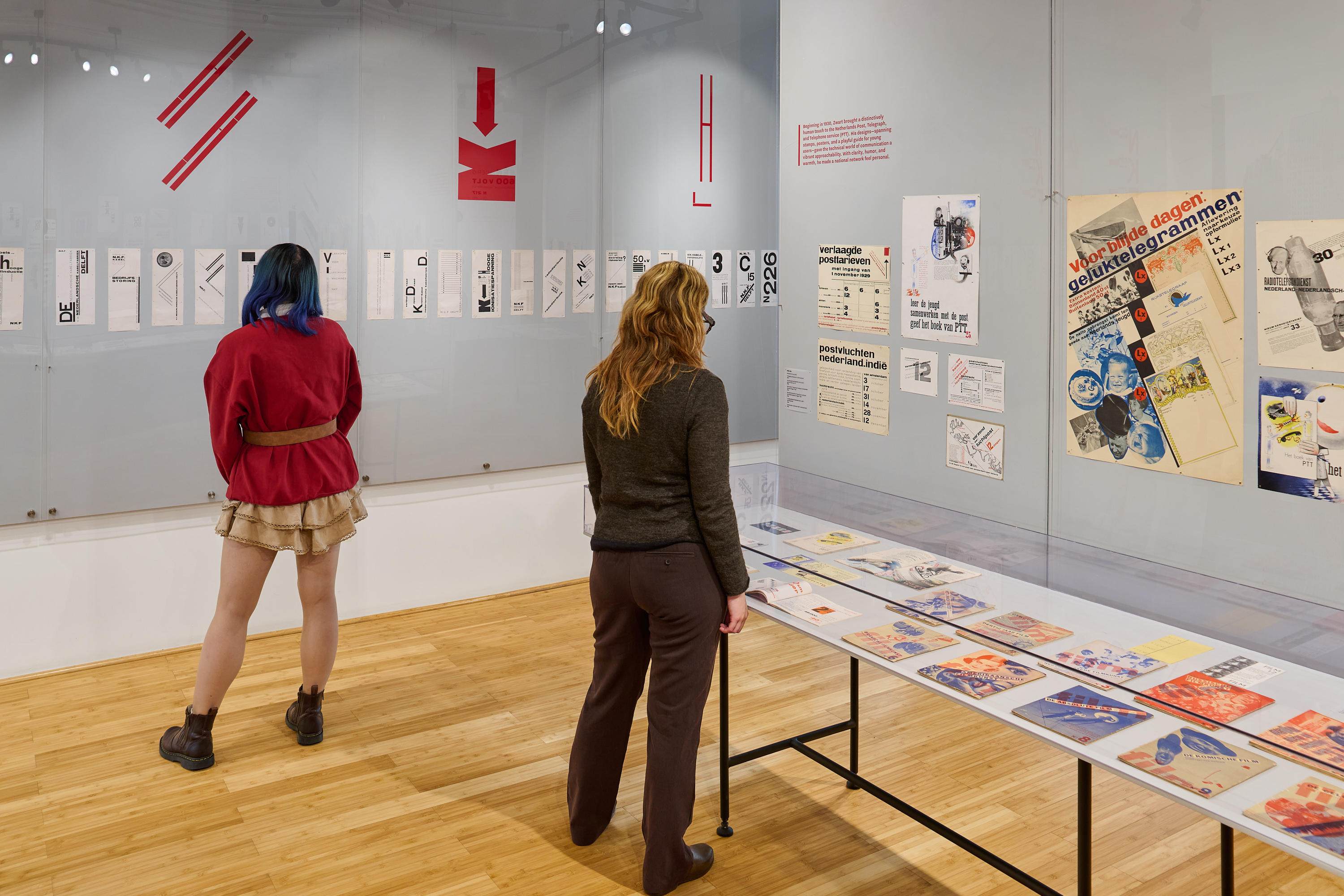
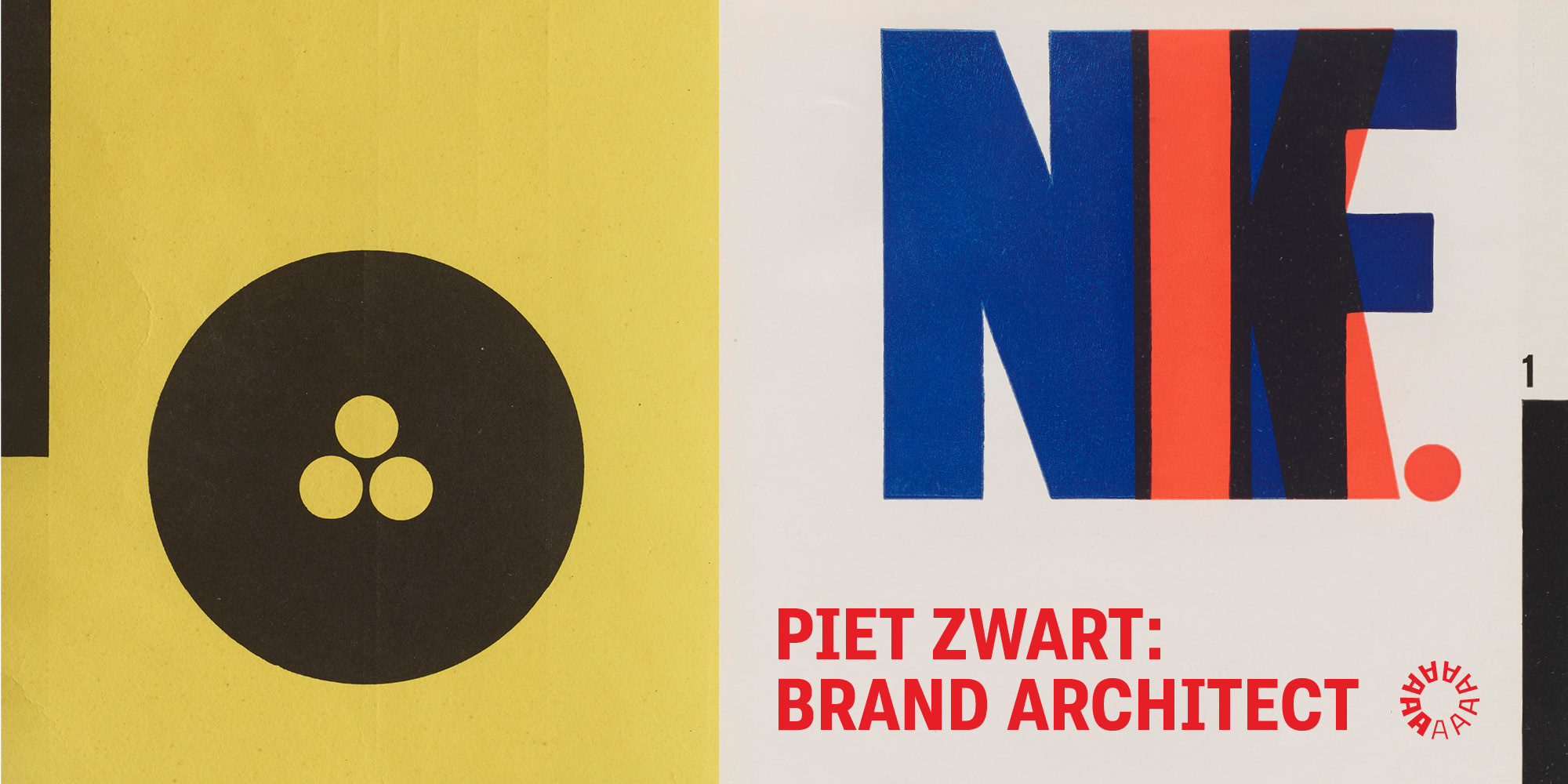
Piet Zwart: Brand Architect
The designer who showed how type alone could carry a brand’s voice.
The brilliant Dutch modernist Piet Zwart described himself as a “typotekt”. The term captured his multidisciplinary approach, creating a legacy that bridged architecture, industrial design, interior design, graphic design, typography, and photography. Drawing from Letterform Archive’s deep collection of Zwart’s work, this exhibition of 200 objects explores his iconic graphic identity programs for Nederlandse Kabelfabriek Delft (NKF), Dutch Postal Telegraph and Telephone Company (PTT), Bruynzeel Lumber Company, and others.
From the 1920s to the 1960s, Zwart profoundly influenced both the Netherlands and the international graphic design community, and many of his works are celebrated as milestones in design history. His signature photomontages, playful type compositions, and bold color fields elevated everyday subjects into platforms for graphic experimentation, leaving a lasting imprint on future generations of designers.